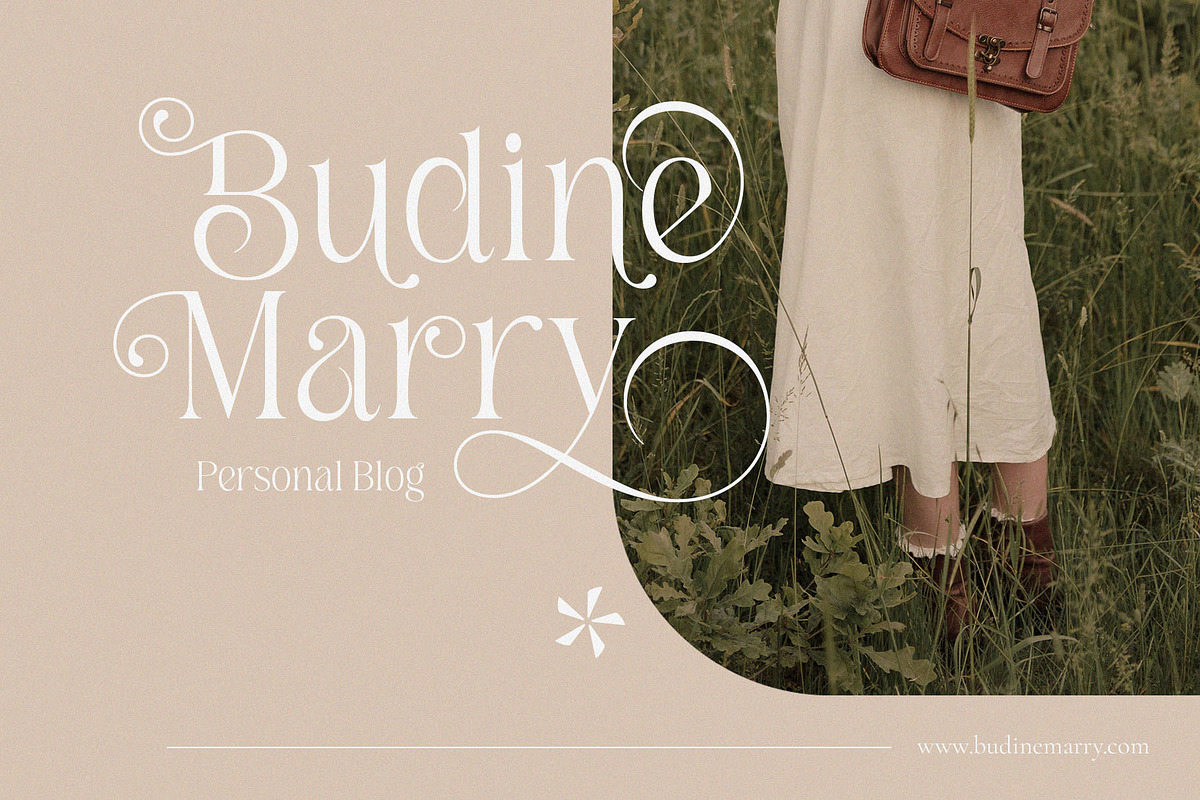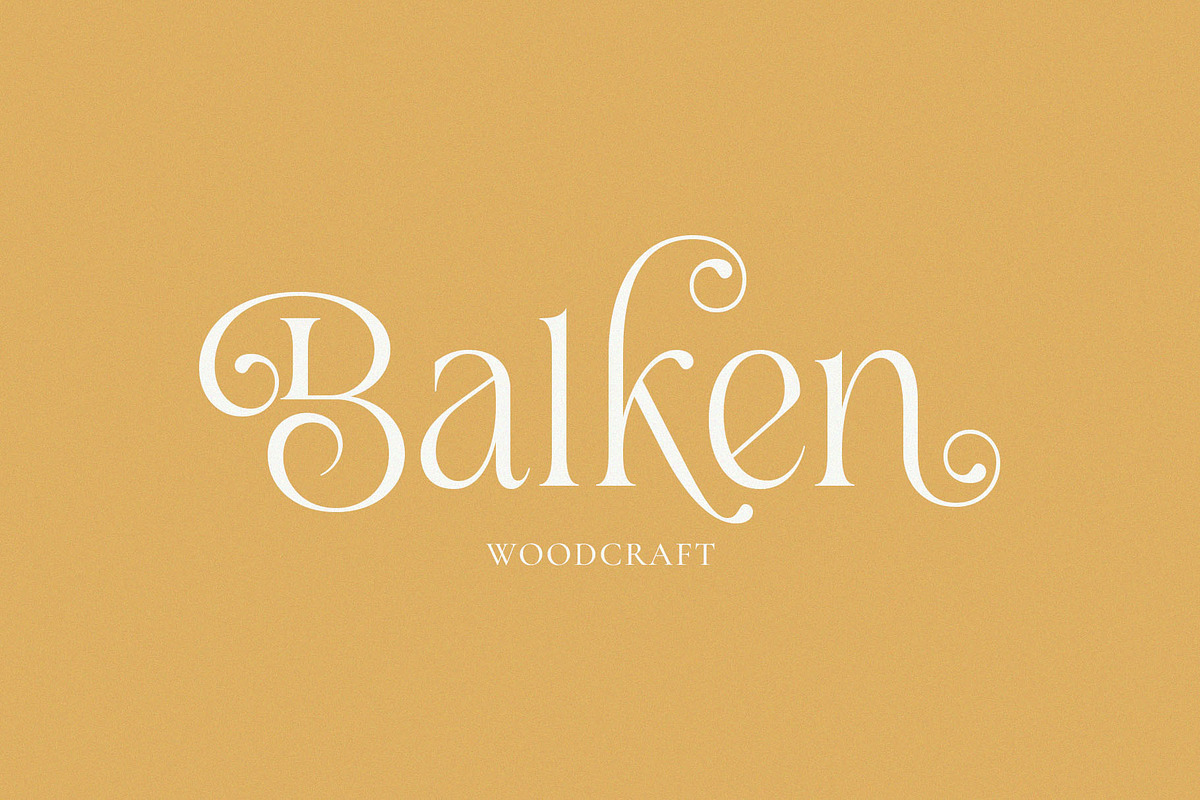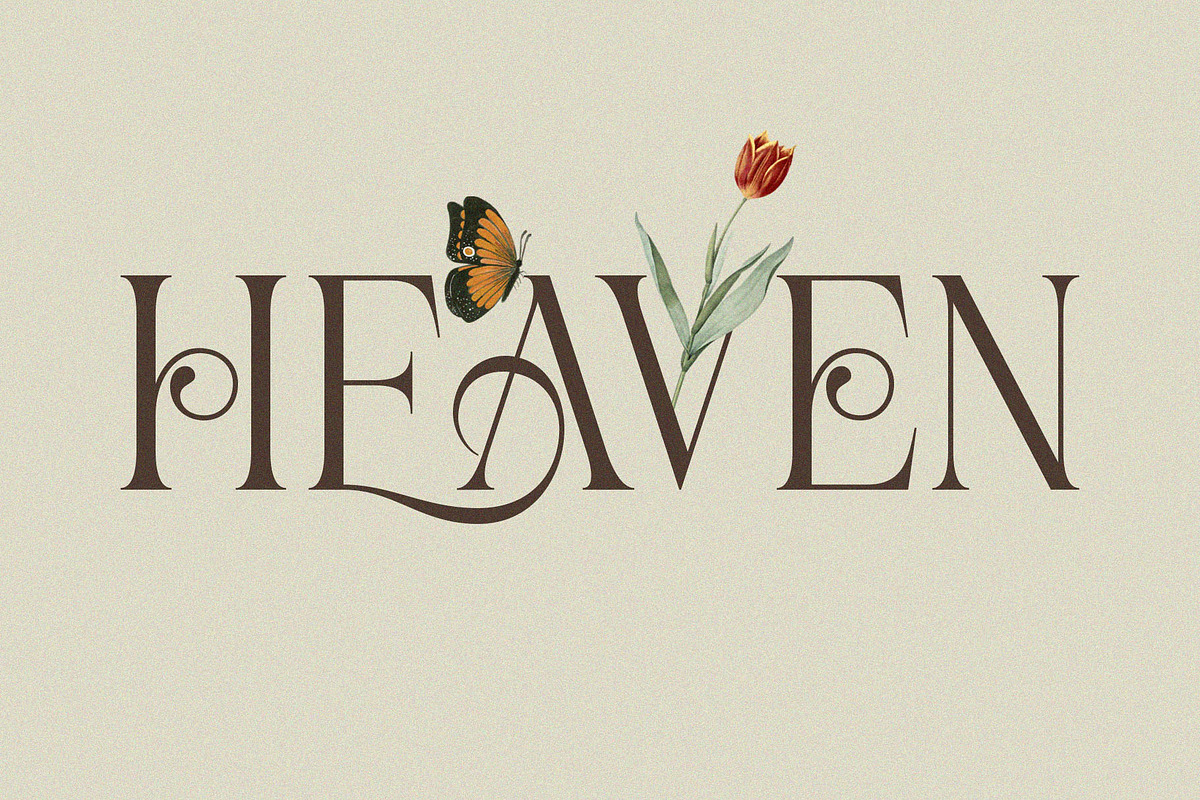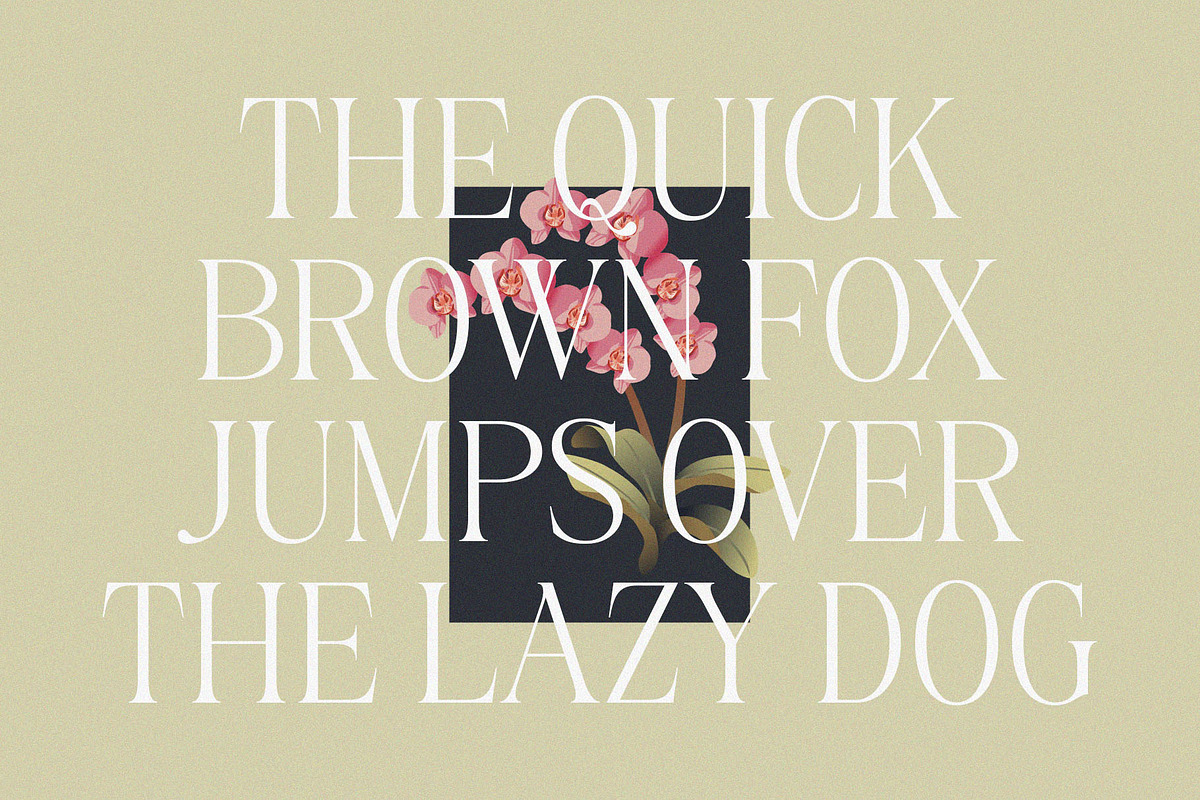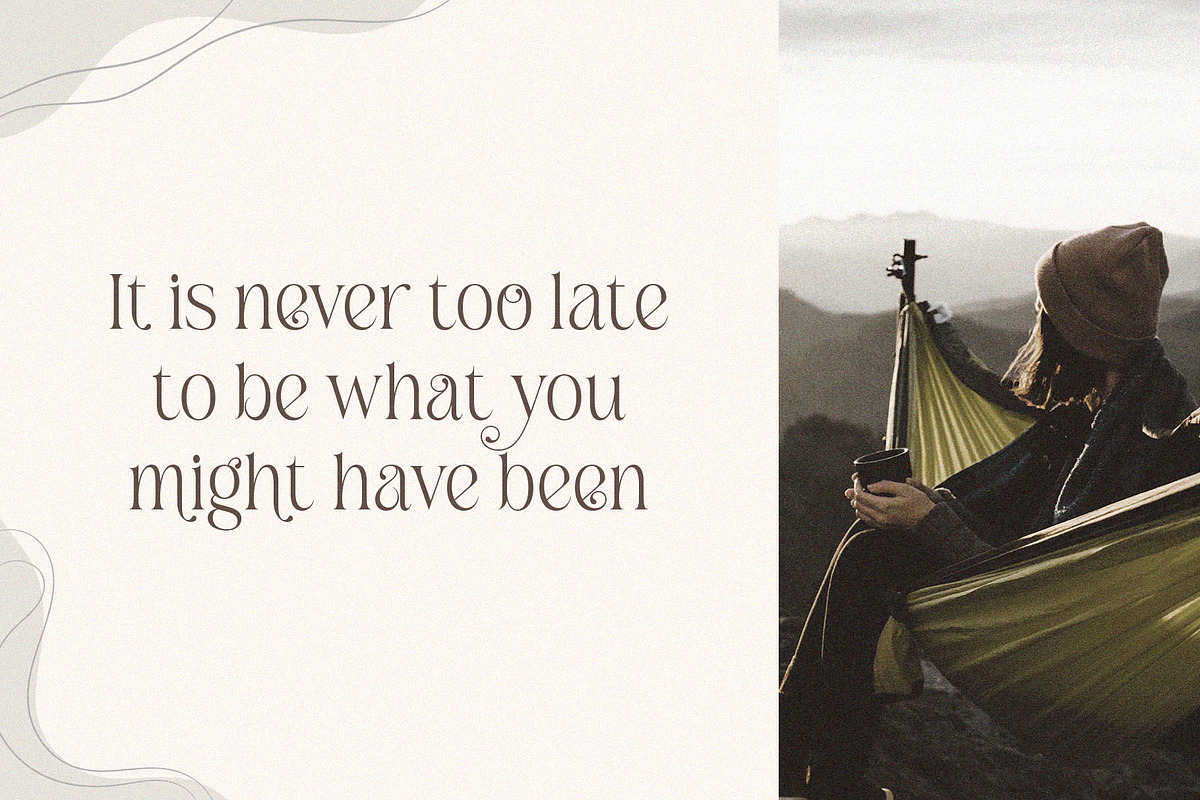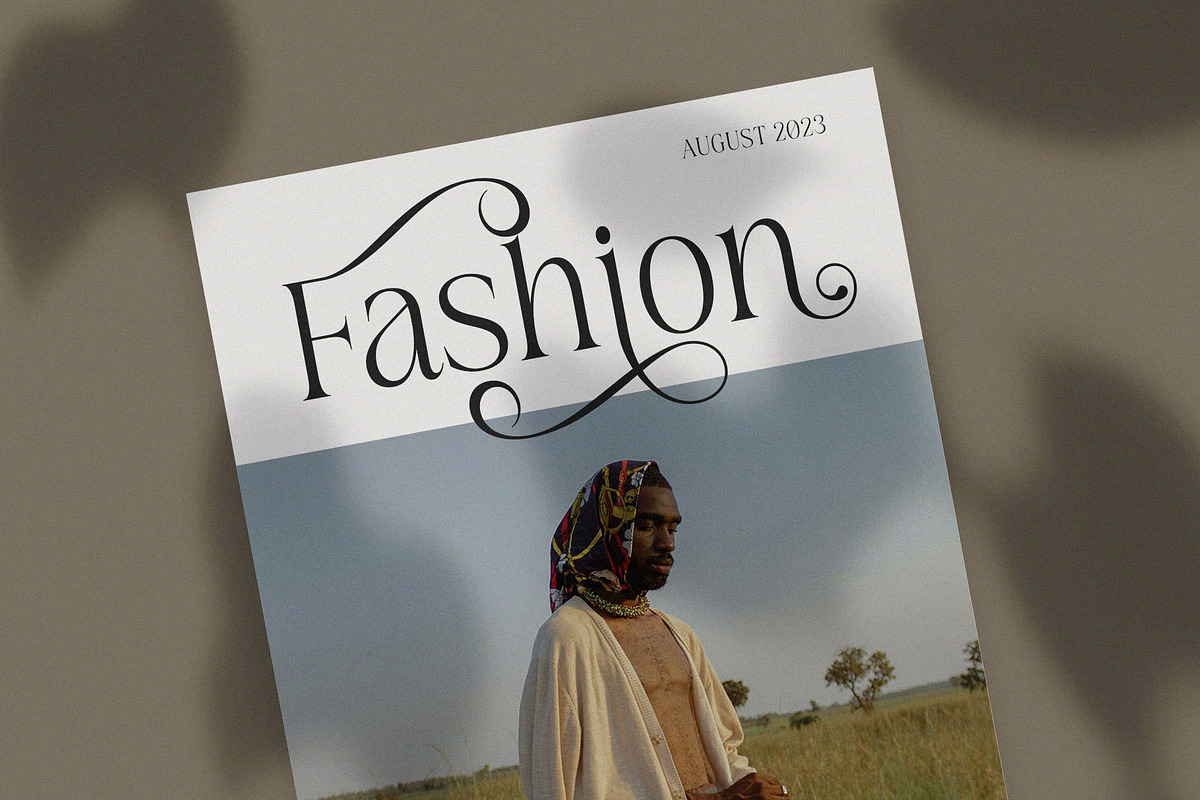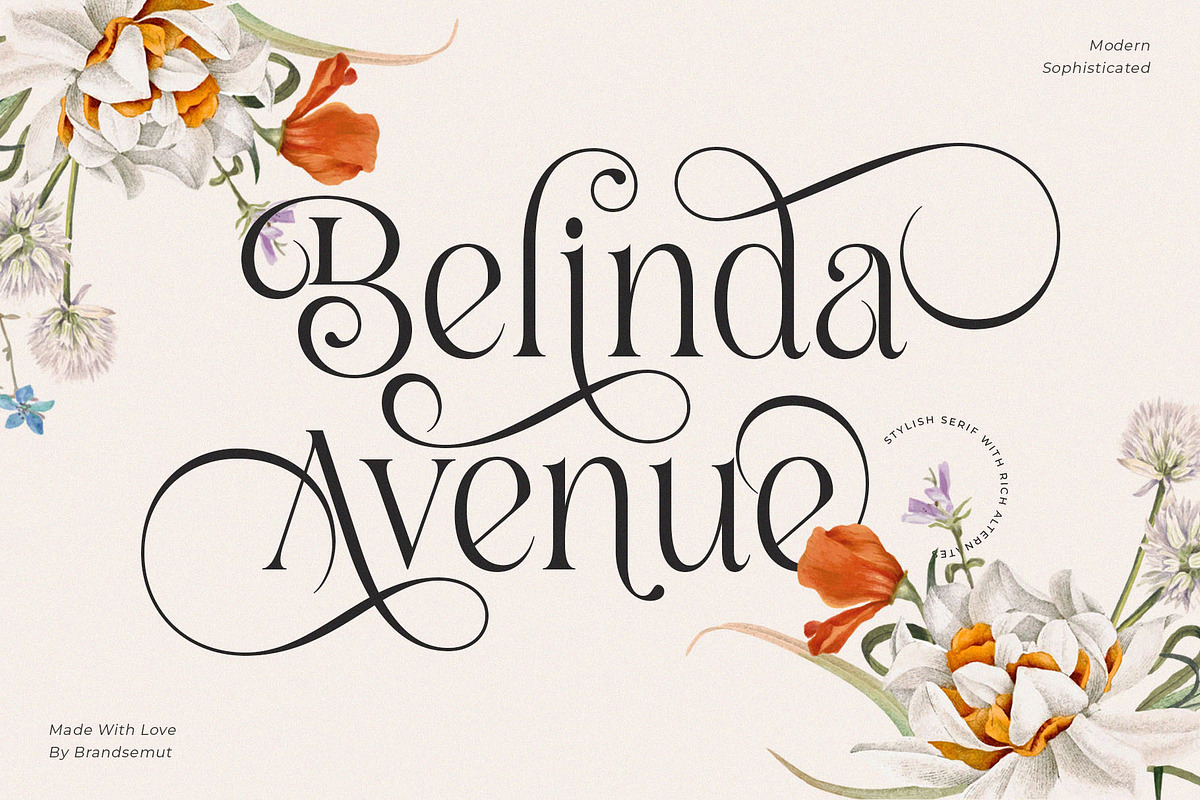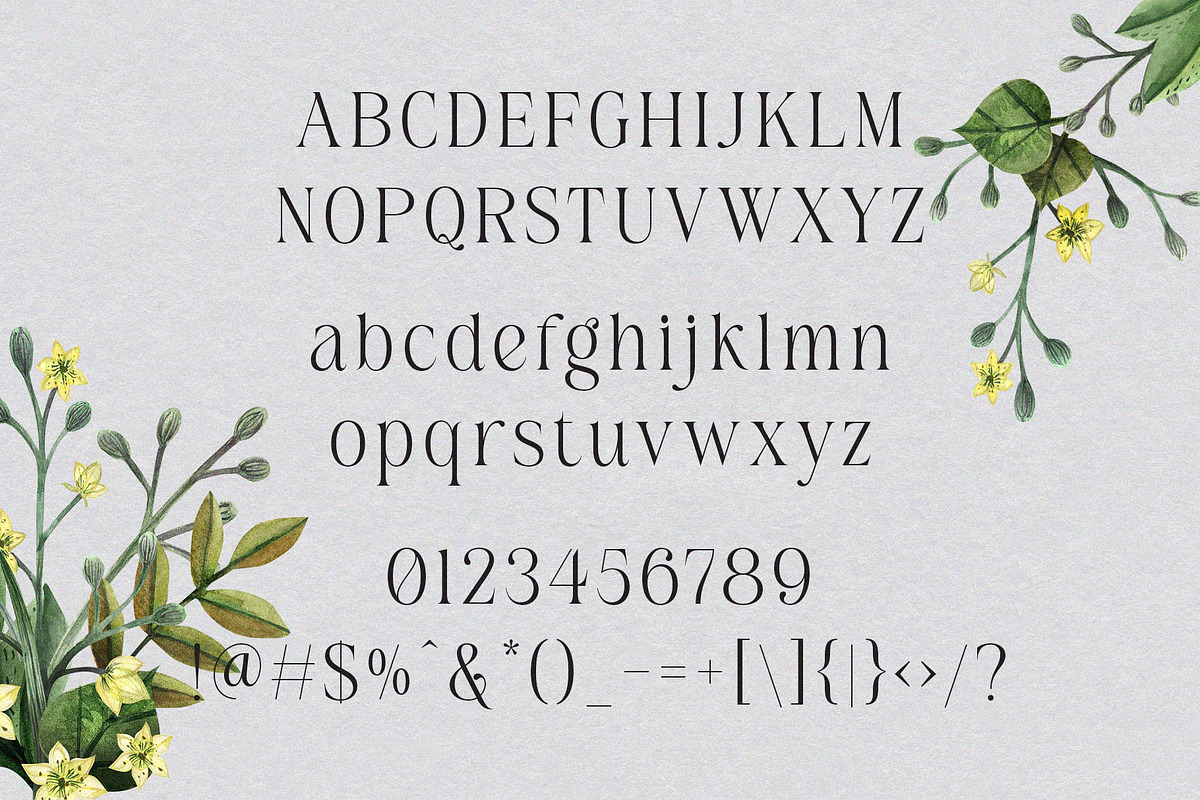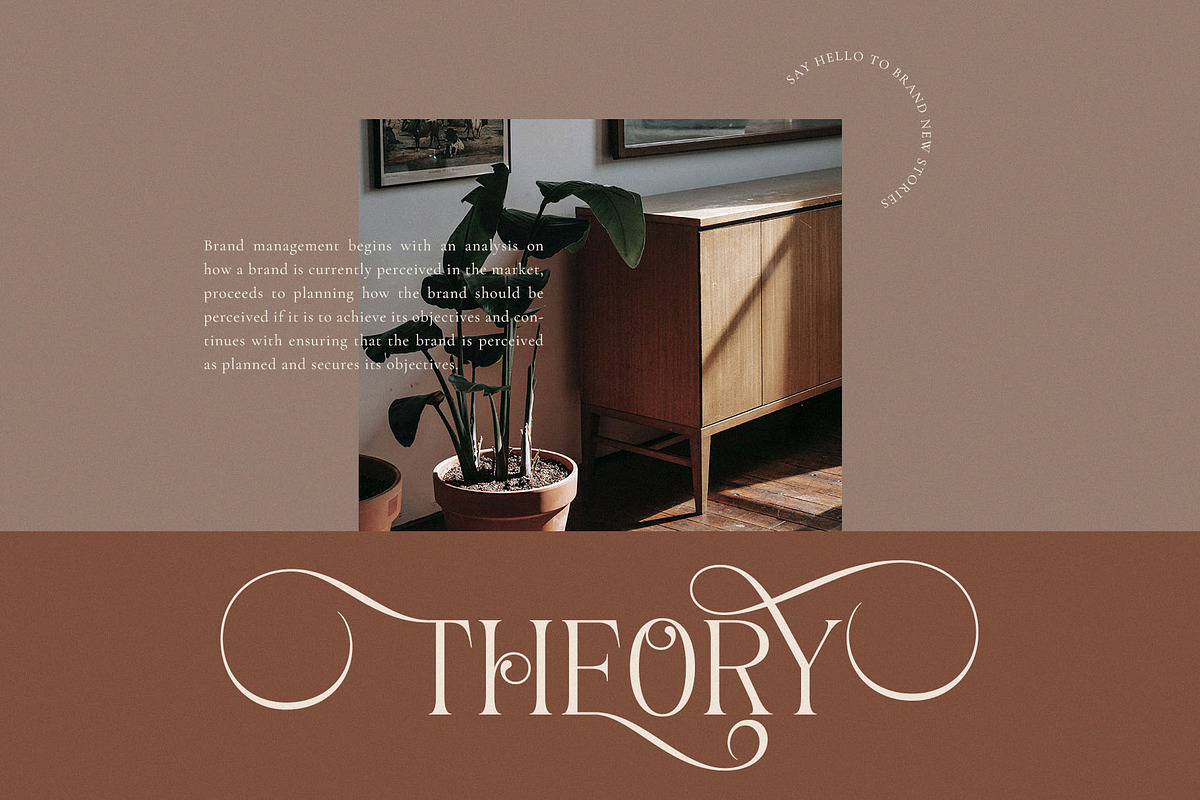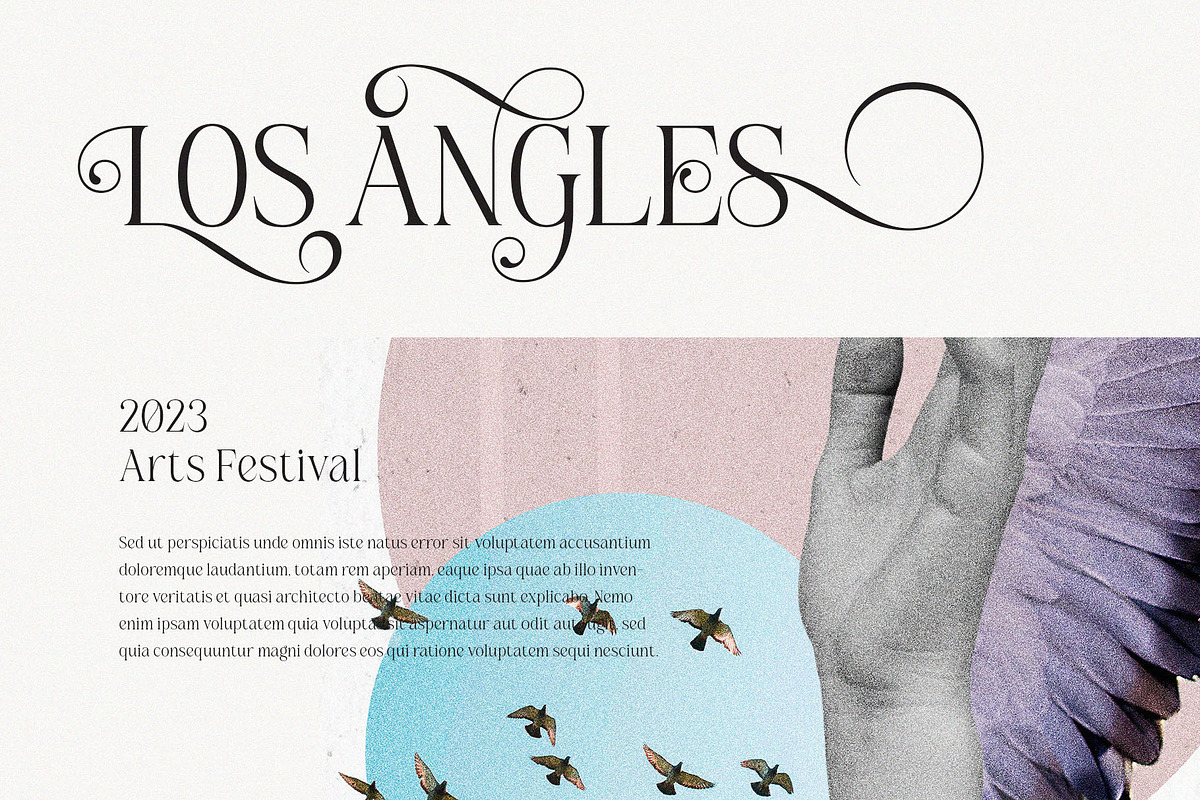
Belinda Avenue || Stylish Classic Se
Introducing Belinda Avenue Stylish Classic Serif. Belinda Avenue is a classic and stylis display serif with rich stylistic alternates, best used as a display for headings, logos, branding, magazines, product packaging and invitations. Belinda Avenue equipped with Ligature and many Alternates and come with clean lines and smooth curves give any project an extra touch of class.